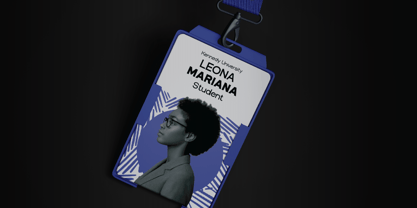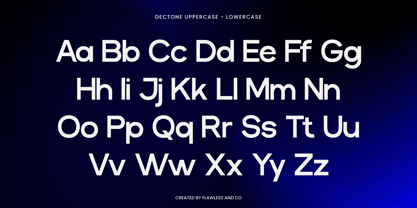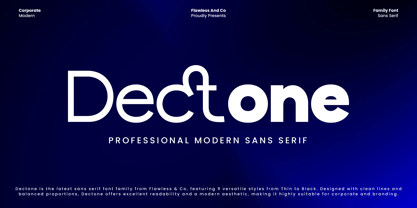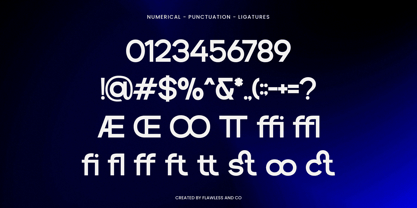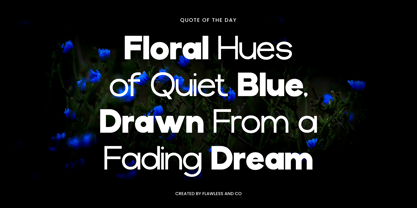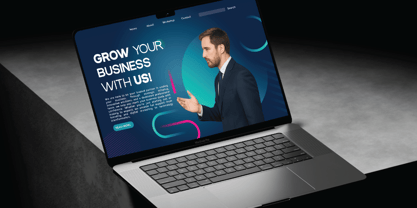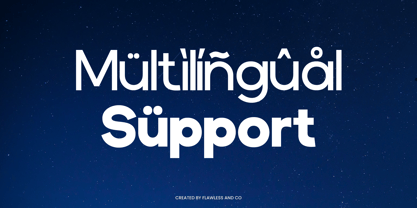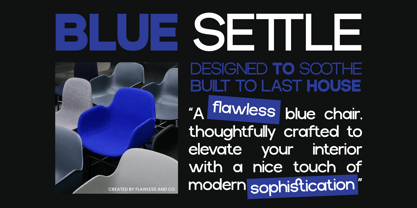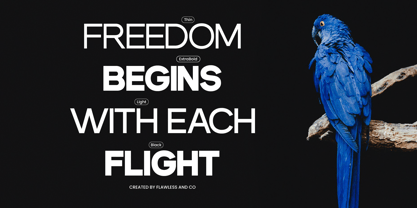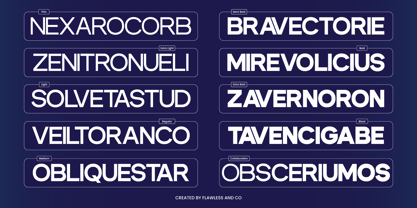
Dectone
by Flawlessandco
The Dectone Font Family was designed by Achmad Yani and published by Flawlessandco. Dectone contains 9 styles and family package options. More about this family
Dectone is a modern sans serif family font crafted for professionals who value clarity, versatility, and clean design. With its balanced proportions, sharp geometry, and smooth readability, Dectone is built to excel in both print and digital platforms. From corporate branding to editorial layouts, from digital interfaces to product packaging, this font family adapts seamlessly to every project.